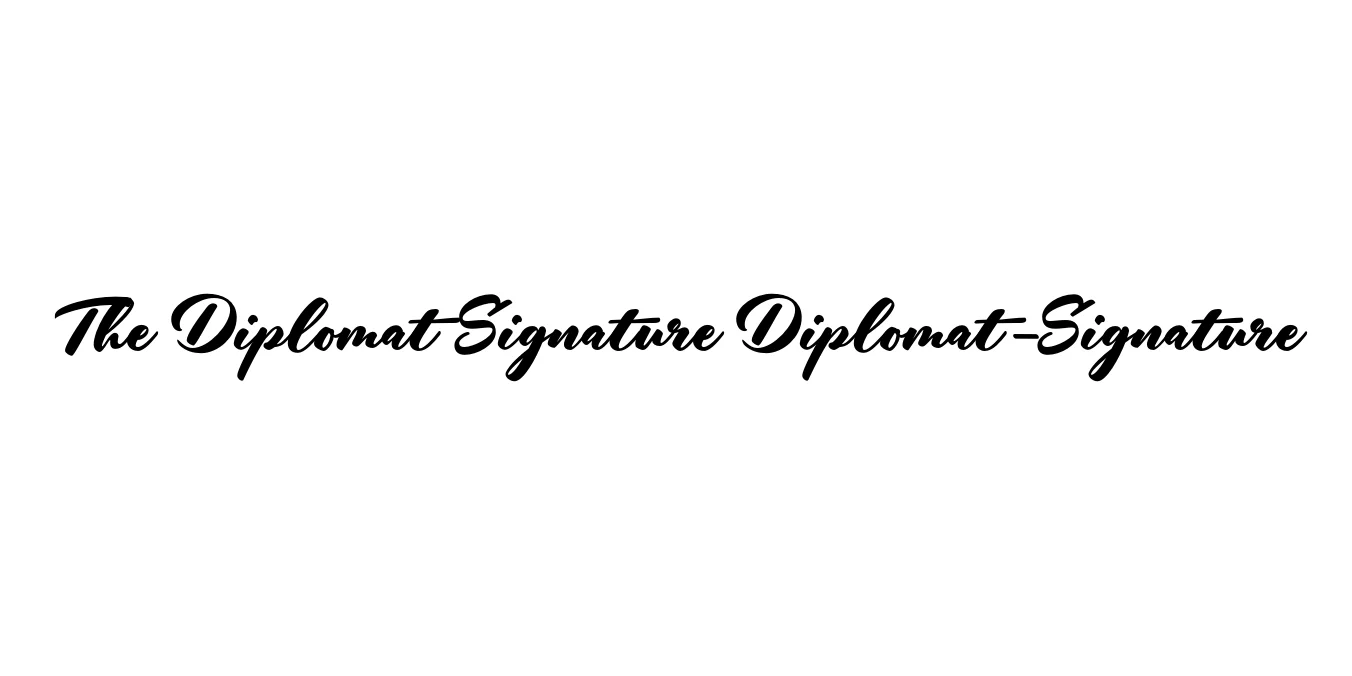
The Diplomat Signature Diplomat-Signature
Designed by Sronstudio
The Diplomat Signature is a premium handwritten script font designed to convey a sense of authority, elegance, and personal flair. Characterized by its fluid, natural strokes and sophisticated ligatures, this typeface mimics the high-end look of a professional fountain pen signature. It was crafted specifically to bridge the gap between casual handwriting and formal calligraphy, making it an essential tool for designers seeking a refined aesthetic for modern projects.
Technically, The Diplomat Signature includes a comprehensive set of uppercase and lowercase letters, numerals, and punctuation. The font is built with OpenType features that allow for seamless connections between characters, ensuring that every word looks bespoke and authentic. Whether used for digital platforms or high-resolution print media, its balanced weight and graceful flourishes maintain legibility while providing a luxurious, high-end feel to any layout.
The Diplomat Signature Diplomat-Signature Best Uses
Creating sophisticated and unique logos for luxury brands.
Adding professional and artistic watermarks to high-end photography.
Designing elegant wedding invitations, save-the-dates, and place cards.
Crafting stylish and personal quote graphics for Instagram and Pinterest.